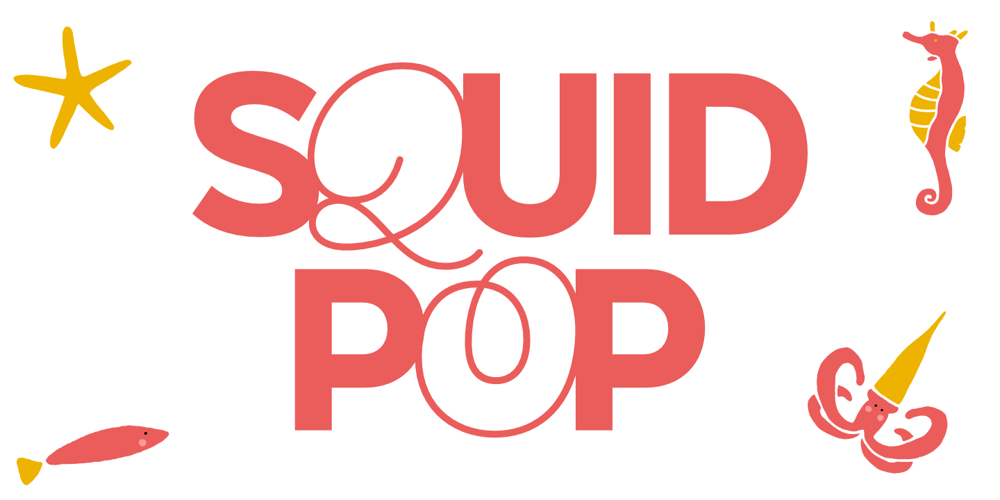
Squid Pop Font Family was designed by Alfin Weniardi and published by Lone Army. Squid Pop contains 1 styles and family package options. Squid Pop is a charming and versatile font that combines the sleekness of uppercase sans serif letters with the playful elegance of cute, thin-lined lowercase characters. Ideal for projects that need a blend of professionalism and friendliness, Squid Pop is perfect for branding, posters, packaging, websites, and more.